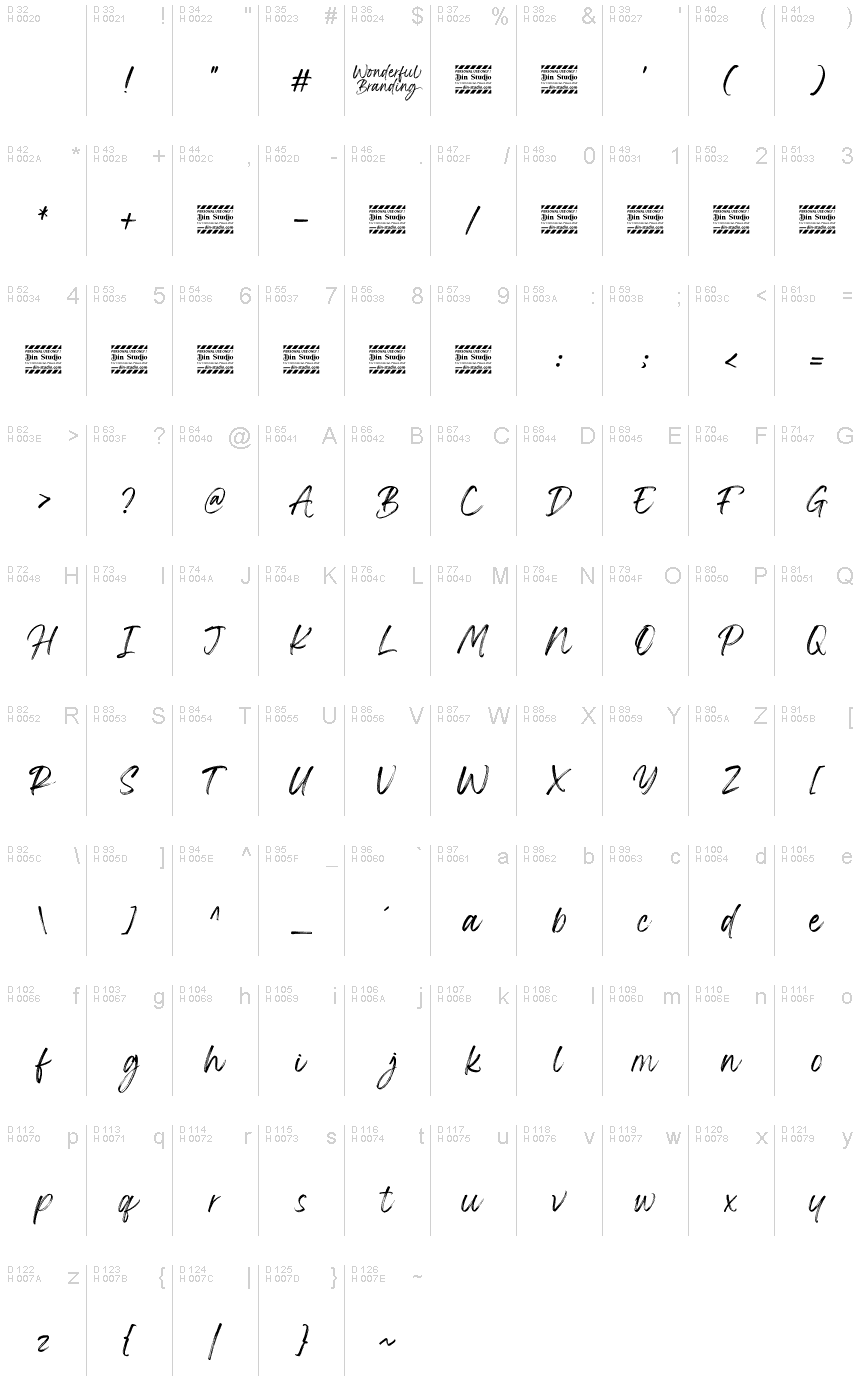
Wonderful Branding is a light and stylish brush font designed by Donis Miftahudin. Its unique brush strokes and casual style make it perfect for projects that require a playful and fun vibe, such as social media graphics, t-shirt designs, or product packaging. Use it to add a touch of creativity and energy to your designs, or to create a sense of informality and approachability. Wonderful Branding is the perfect font for anyone looking to inject a bit of whimsy into their work.
Wonderful Branding A Handwritten Brush Font
Giving you a simple, yet wonderful solution to your branding. This font is more than just another handwritten brush font. It encapsulates the essence of modernity and elegance. With elegance and passion edged into every curve and twist of this brush font youll be sure to boost your sales and make the best impressions. Use it for headings, logos, business cards, printed quotes, invitations of all sorts, cards, packaging, and your website or social media branding.